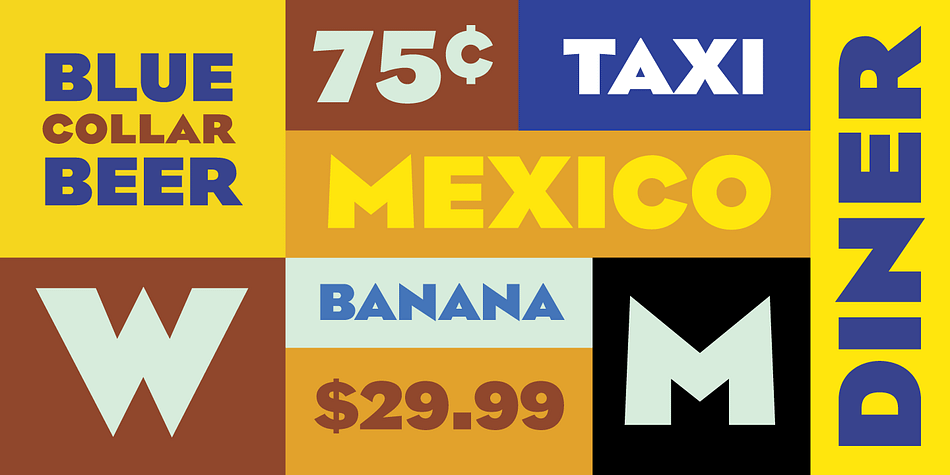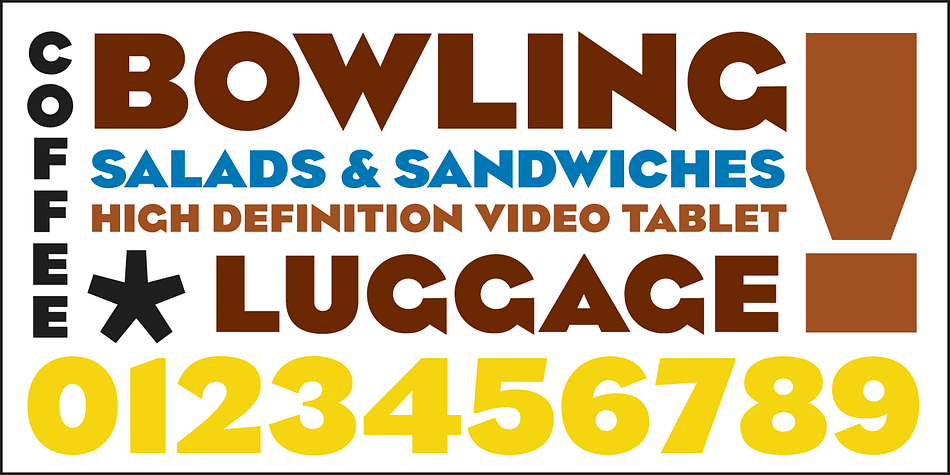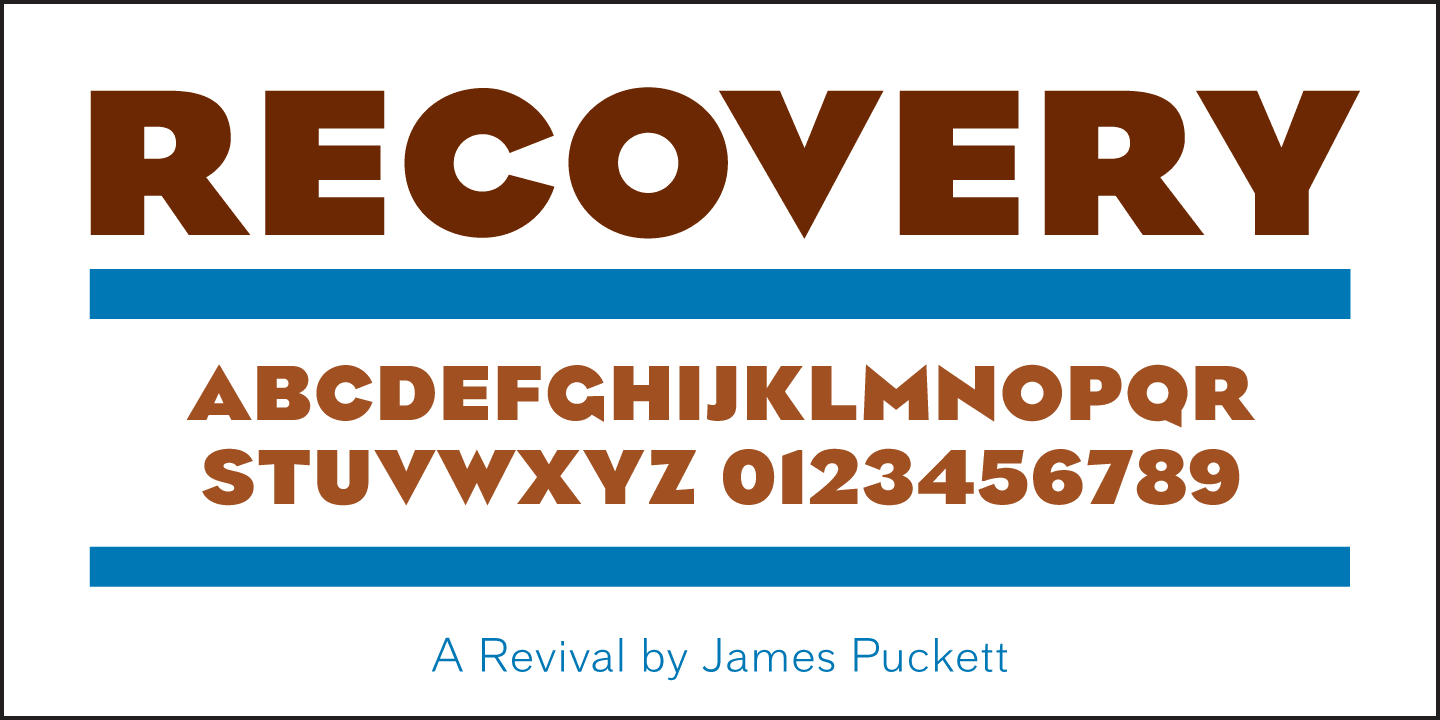
Recovery is a display sans font published by Dunwich Type Founders.
Recovery brings history to bear when the blackest type is called for. Charles Coiner’s identity for the depression-era National Recovery Administration included an alphabet of heavy art deco forms distilled with a chemistry set borrowed from the modernists of the Weimar Republic. America was blanketed with Coiner’s propaganda graphics for the less than two years the NRA survived. At American Type Founders Morris Fuller Benton turned Coiner’s work into the typeface Eagle Bold.
Recovery is a revival of Eagle Bold. Benton’s letters have been tweaked to provide a more intense and even wall of black than was possible with foundry type. Small caps have been added to lend titles potency. These brawny forms can beef up any headline.